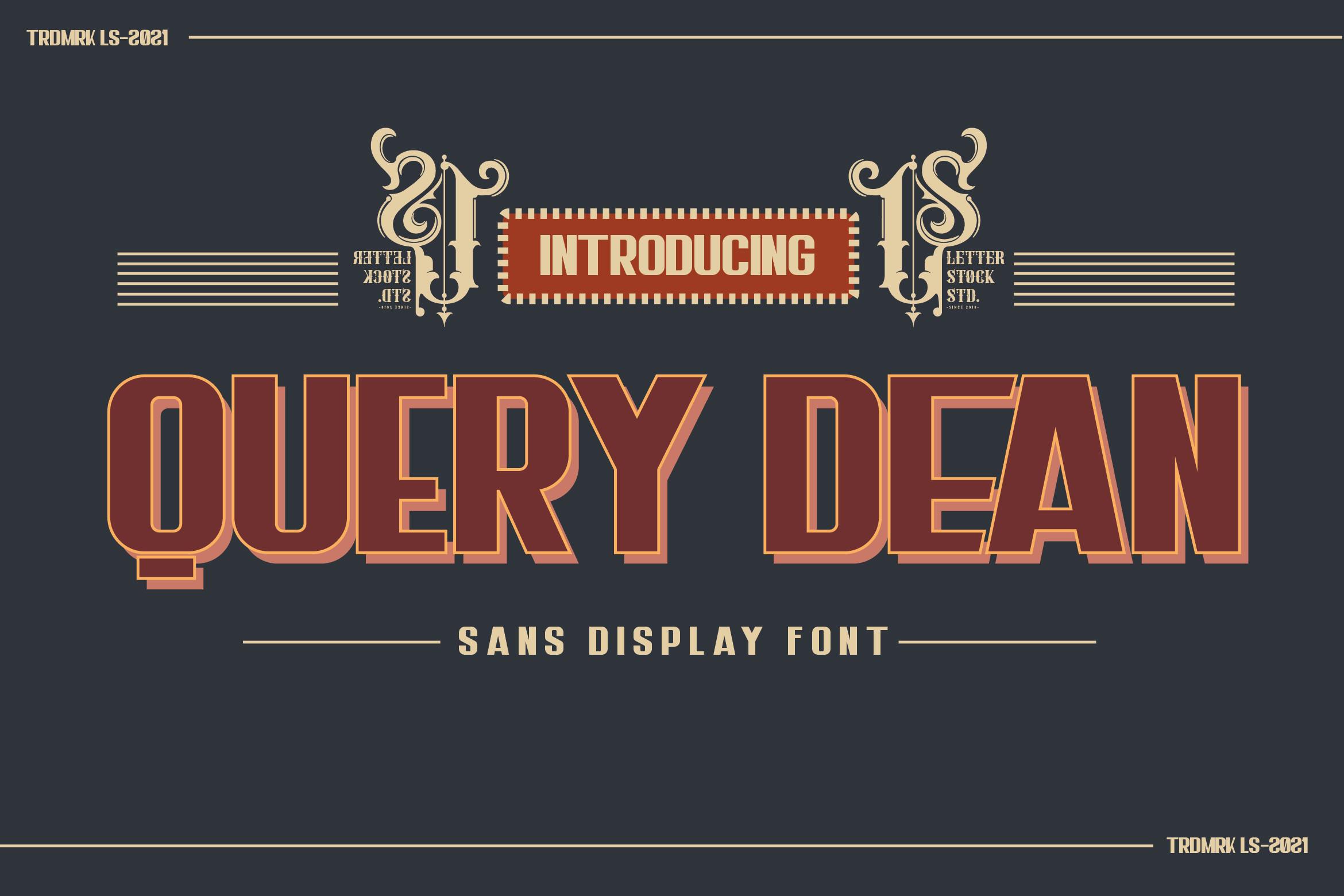
Query Dean Font Description
Query Dean is a cool and bold display font. It will elevate a wide range of crafting ideas, from cards, to branding, labels and much more. Add it confidently to your favorite creations and let yourself be amazed by the outcome generated.